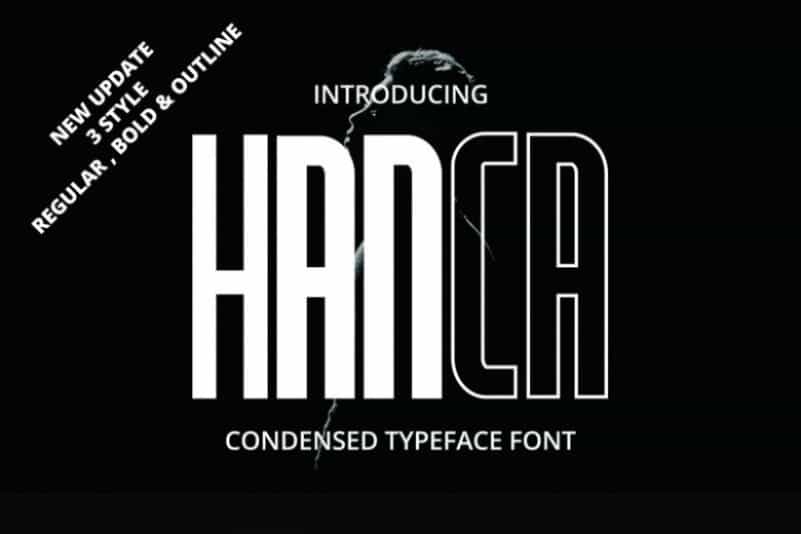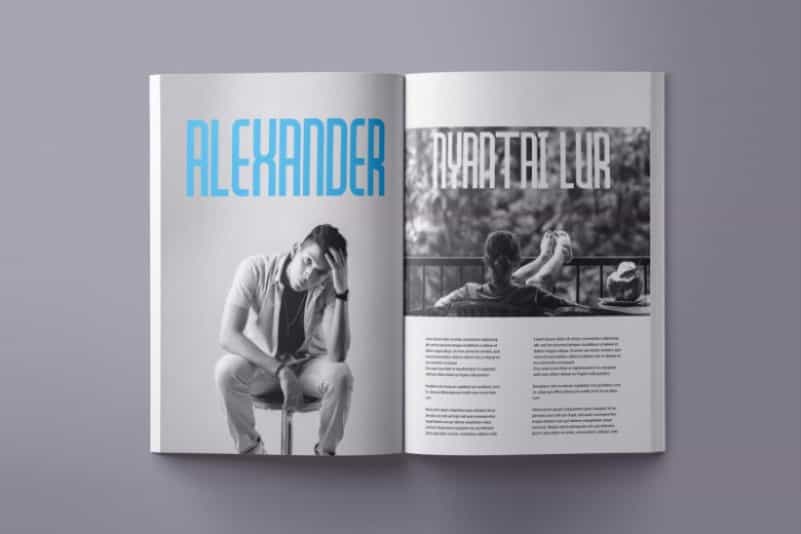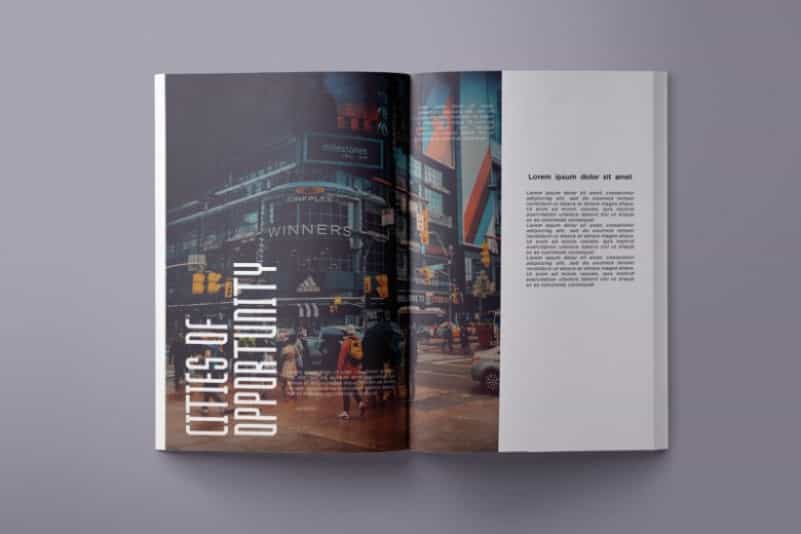
Introducing Hanca Font. Thus, HANCA Sans is the one. It is an enjoyable, tenacious, and graceful typeface. This collection is ideal for headlines, quotes for the magazine covers, editorial design, print posters, signs, window shop design and many other purposes.